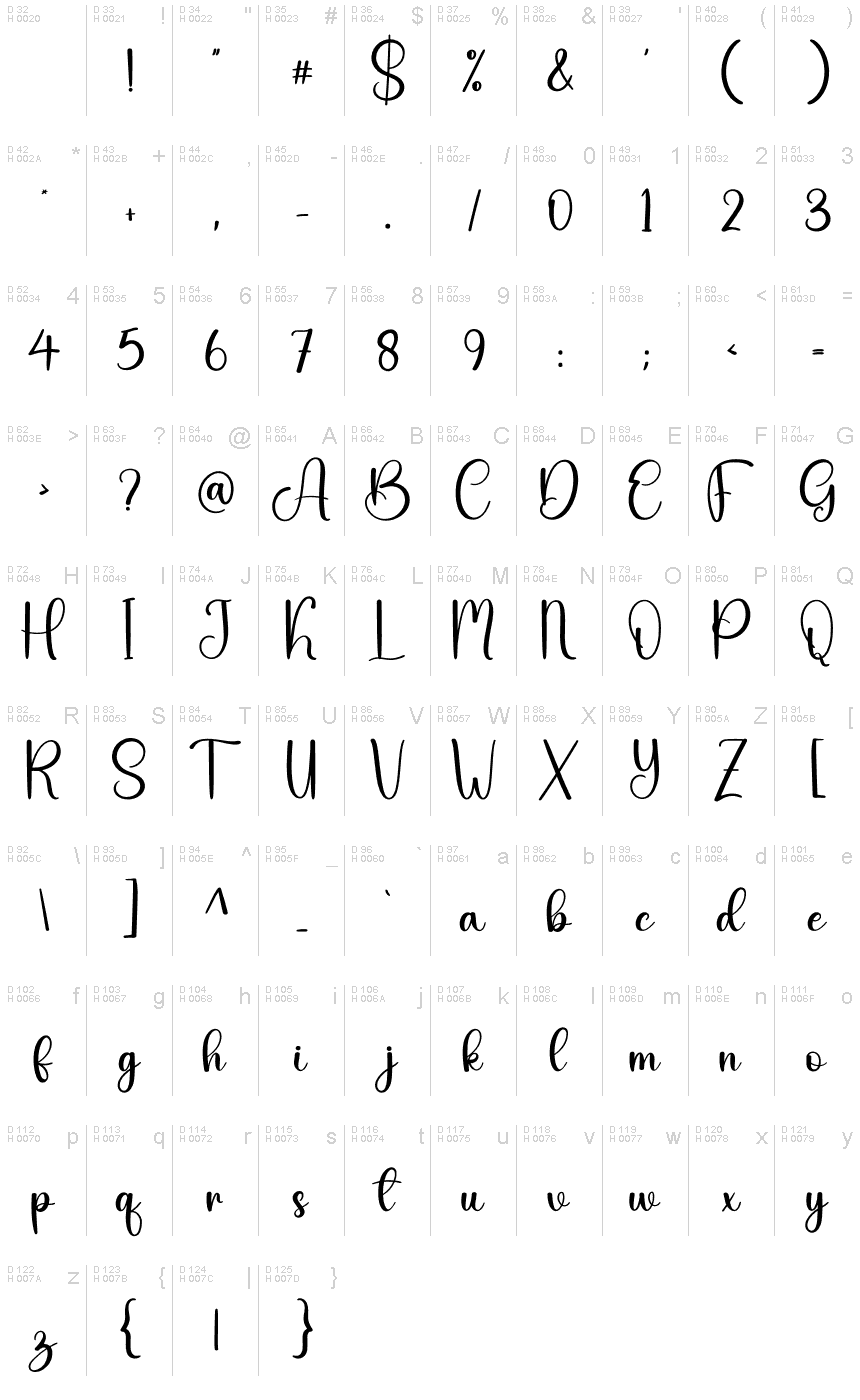
Biscuits
Biscuits, a lovely handwritten font by Harlek Studio, adds a touch of whimsy and warmth to any project.
Its semi-light weight exudes elegance and sophistication, making it perfect for wedding invitations and romantic greeting cards. The charming curves and delicate strokes make Biscuits a delightful choice for children's book covers or playful packaging designs. With its handwritten charm, this font brings authenticity to scrapbooking projects or personal journals.
Whether you're aiming for sweetness or nostalgia, Biscuits is the ideal choice to infuse your creations with a touch of love and creativity.